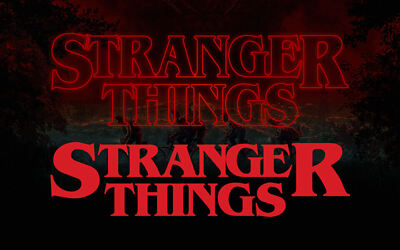
Minya is a modern serif typeface inspired by all the retro aesthetics making a comeback.
Minya has an Outline version perfect for creating nostalgic yet still elegant designs such as logos, packaging, editorial, and any projects. It makes a high level of legibility.